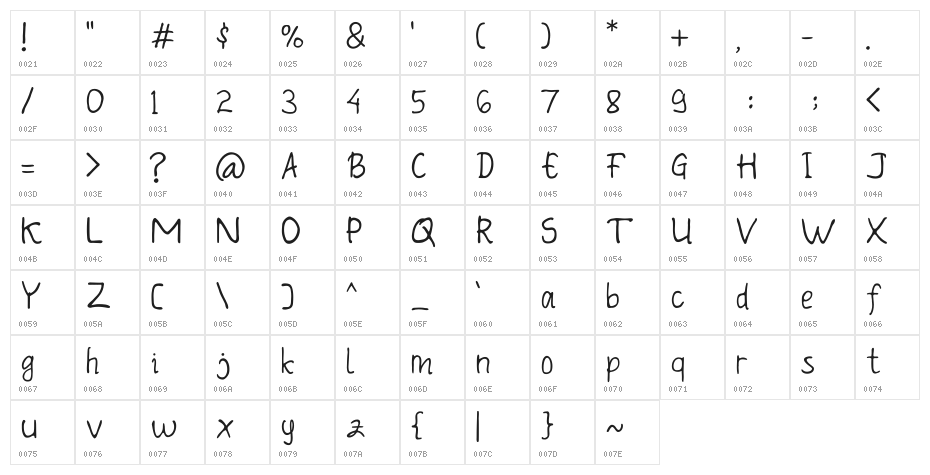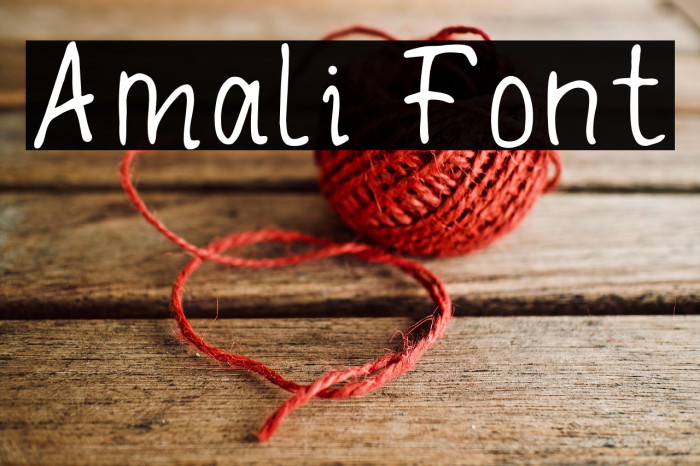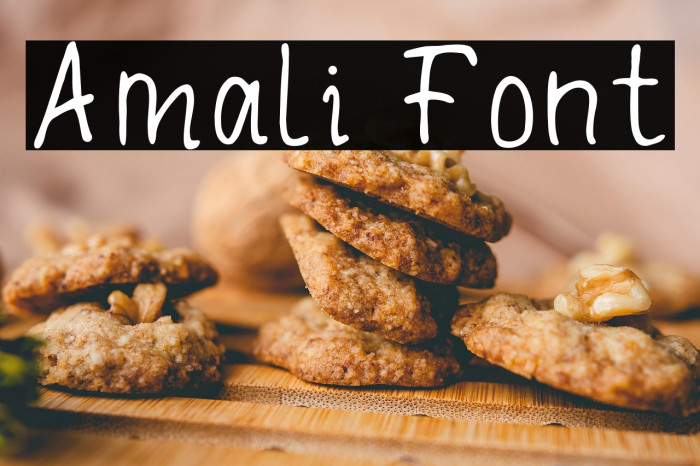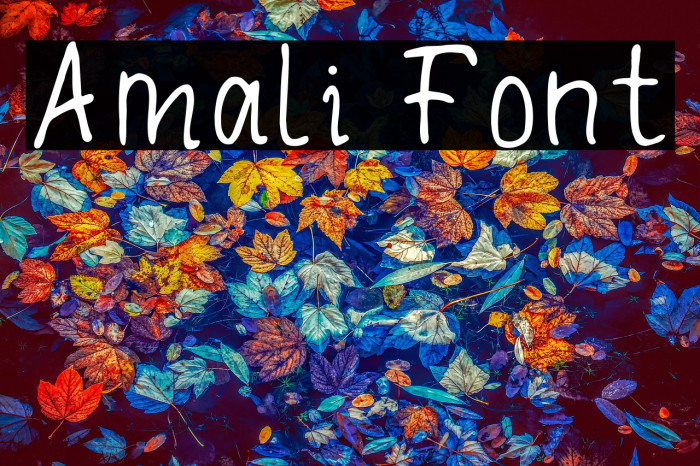
Amali Font
Amali Description
This font features a playful and casual handwritten style, characterized by its irregular strokes and slightly uneven baseline. The letters have a natural flow, with rounded edges and a slightly tilted appearance, giving it a friendly and approachable feel. The uppercase and lowercase letters maintain a consistent style, while the numerals and special characters blend seamlessly with the overall design. This font's informal nature makes it suitable for projects that aim to convey warmth and personality.
| Use Case | Headlines, Informal text, Personal projects |
| Proposed Projects | Ideal for greeting cards, children's books, personal blogs, and informal branding projects. |